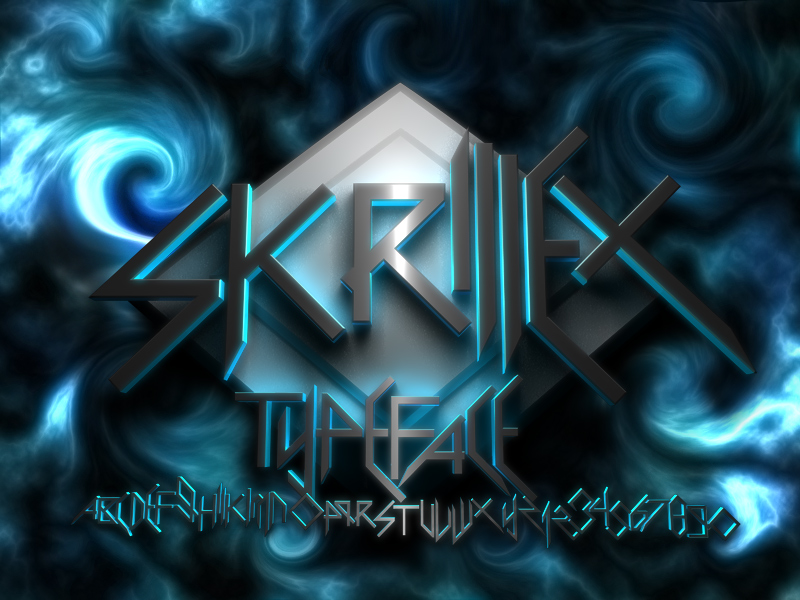
Preview and download Scary Glyphs and Nice Characters Font. Created by Neoqueto in Gothic Modern styles with 100% Free license.
YES OH MY GOSH, finally available on DaFont! (thanks to Rodolphe) Copying the same thing over and over: --- A font inspired by Skrillex logo. Skrillex is a stage name of Sonny Moore, an electronic music artist who is famous for his dubstep releases, especially his EP called "Scary Monsters and Nice Sprites". Enjoy. A message for everyone: --- If you're about to type "Skrillex" only, I recommend you making or downloading a perfect vector trace of the original logotype OR just hit "&", if you decide to use my font for your design. I often see Skrillex's logo adaptations made using this font and... I don't know why, but people somehow screw it up almost everytime. Changelog: 2.06.2011 - created on FontStruct (a great, free, online tool and community that I recommend mostly for beginners, but everyone's welcome - http://fontstruct.com) 18.10.2011 - numerals added 20.7.2012 - changed the name, removed "(Skrillex font" part - added the following characters: "!", "?", "-", "_", ",", ".", "$". 22.7.2012 - lengthened "J", so it looks a bit more like "J" - redone in FontLab Studio with kerning, better spacing and some other, minor or major improvements. Also: --- Cheers to all Skrillex and dubstep fans over the world! Feel free to use this font commercially or non-commercially and, most of all, have a nice day. Make sure to check out my other fonts! More... |